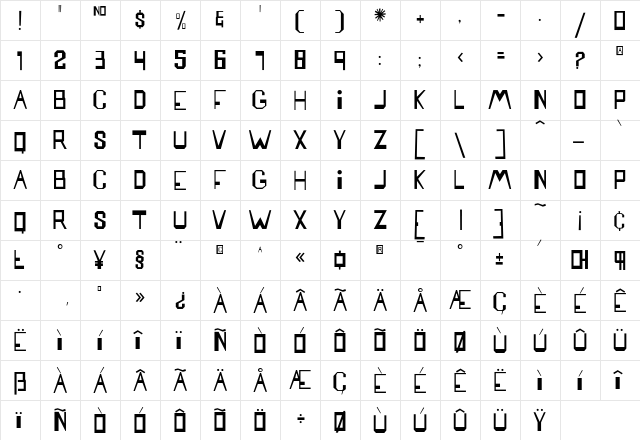
Mattress Regular
Design Context for Mattress Typeface
Mattress offers clean, dependable letterforms without strong stylistic allegiance, making it a practical choice for designers who need flexibility.